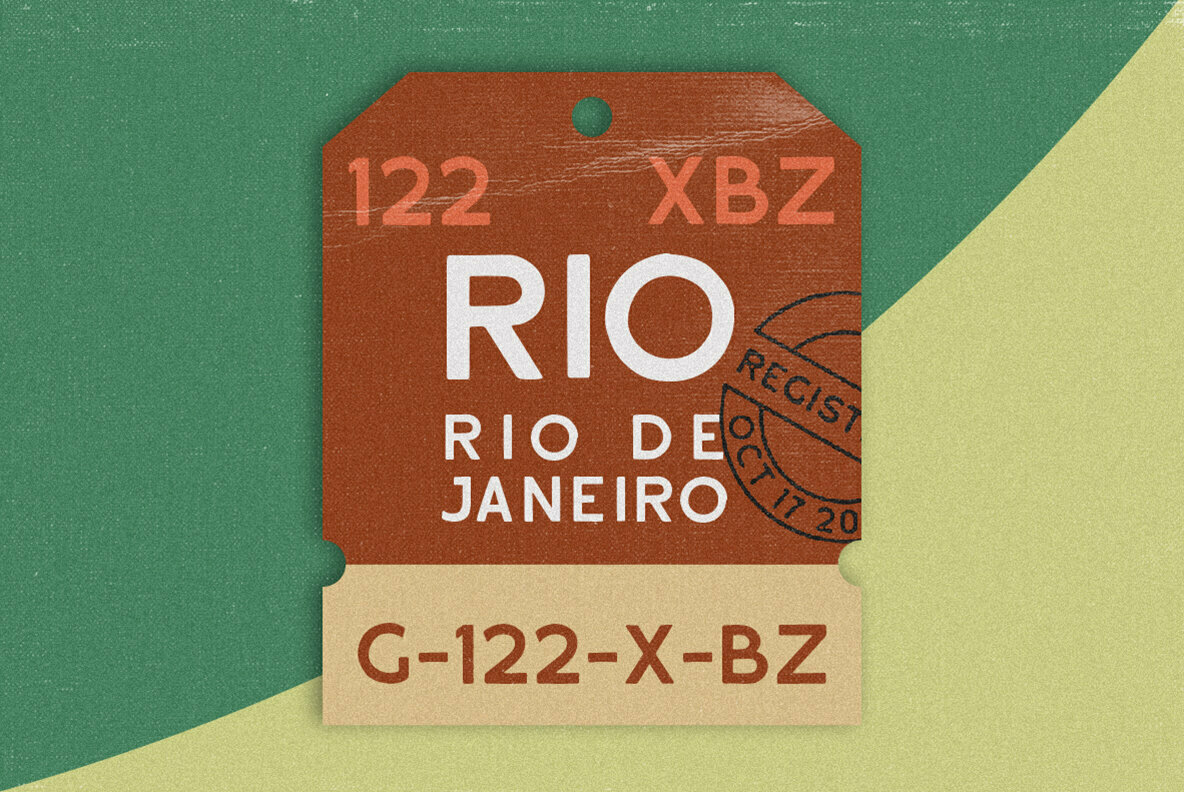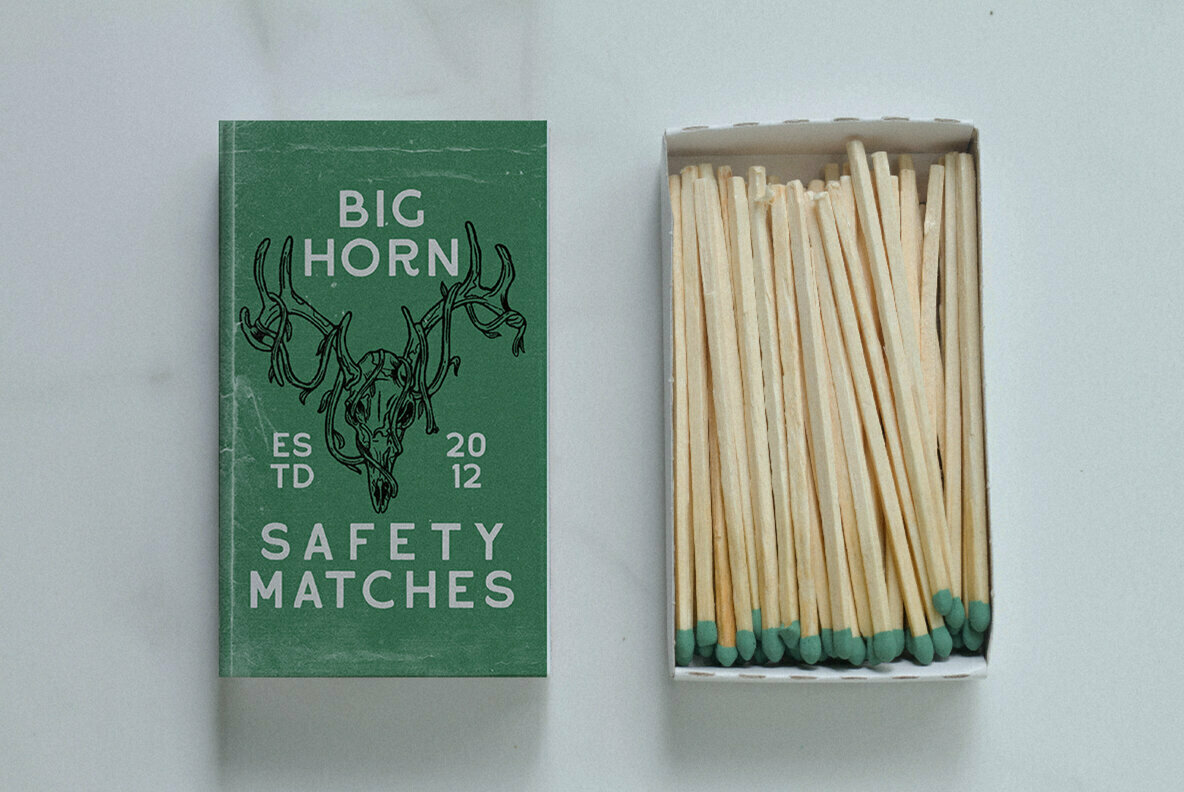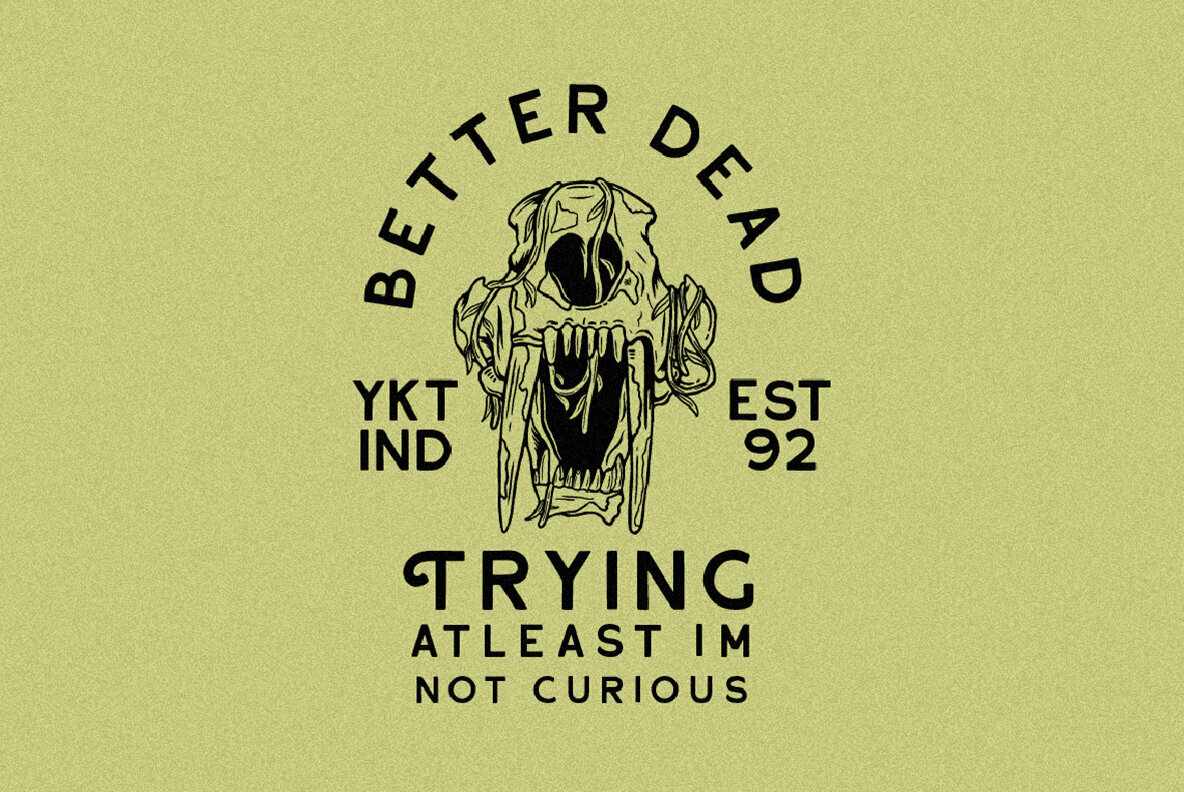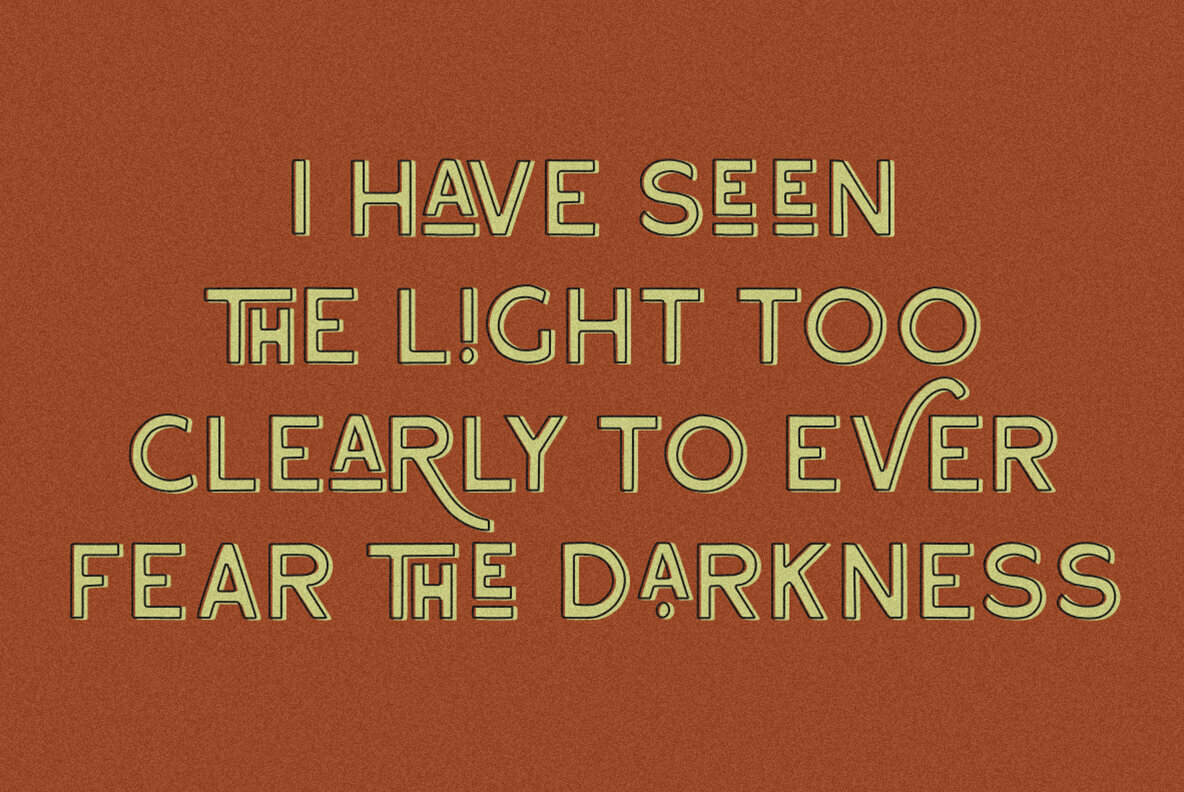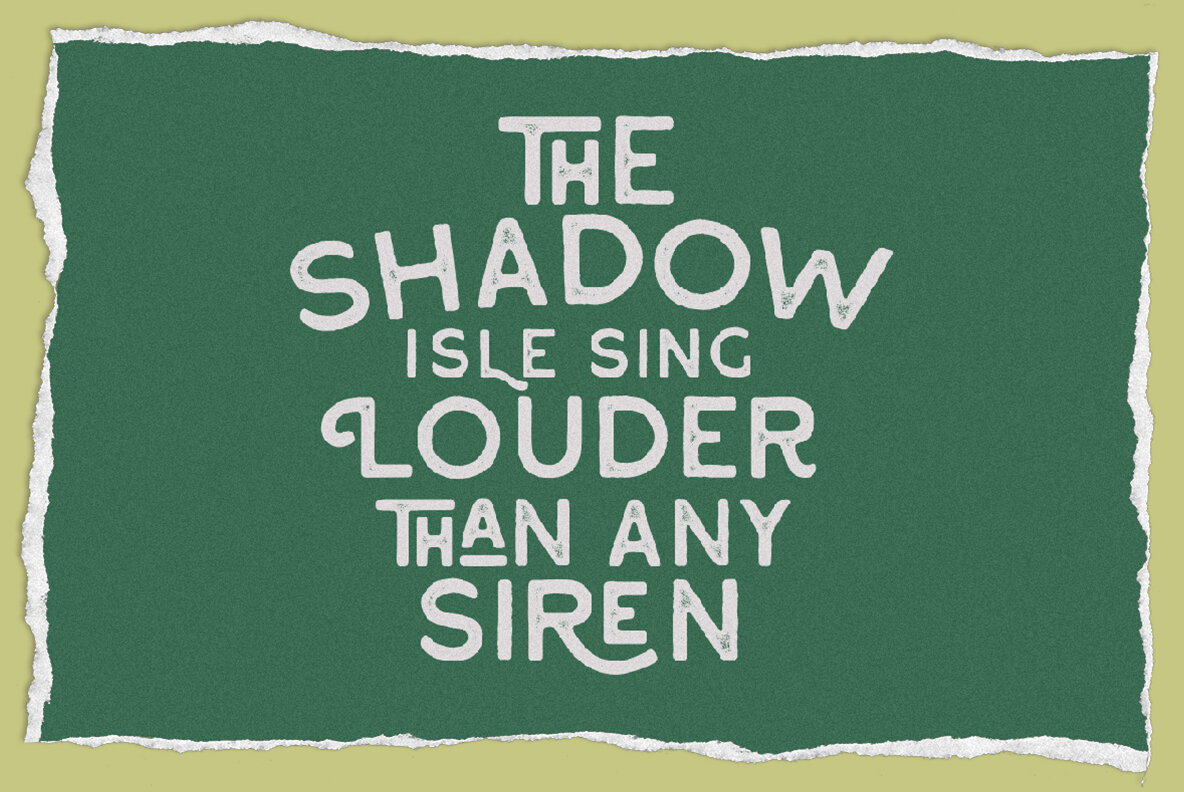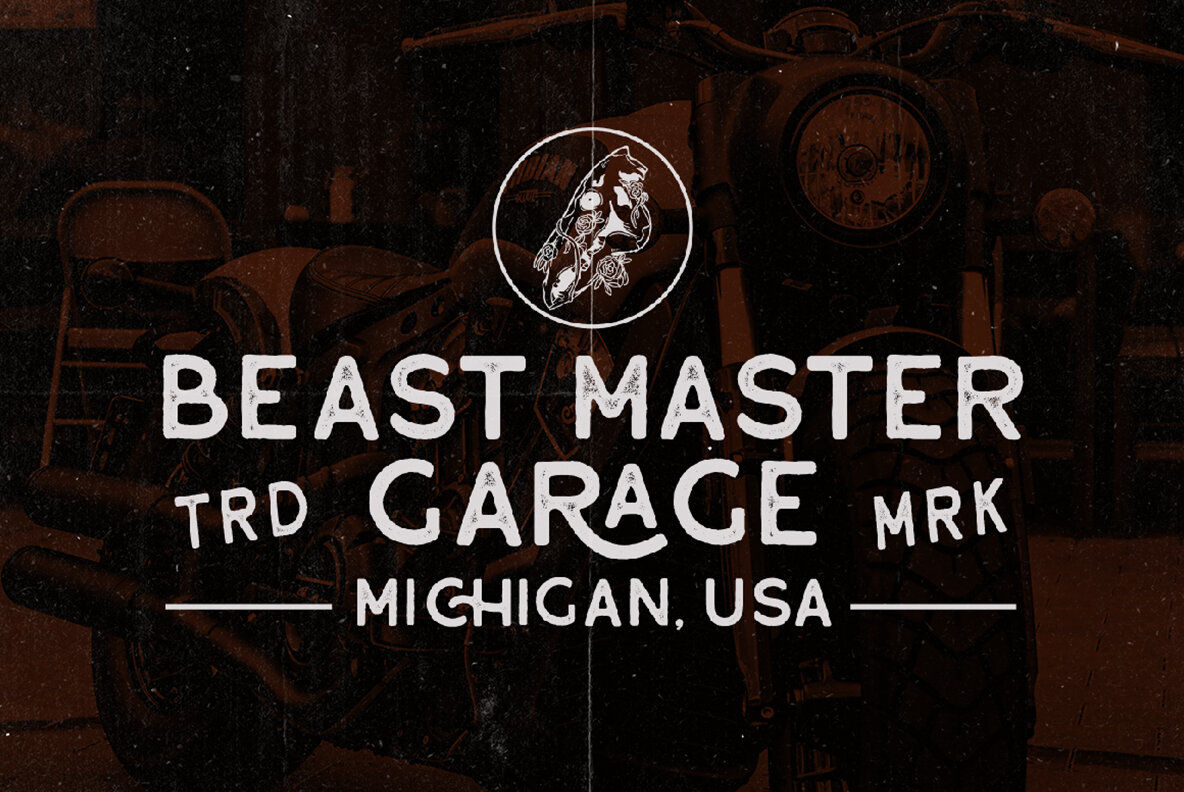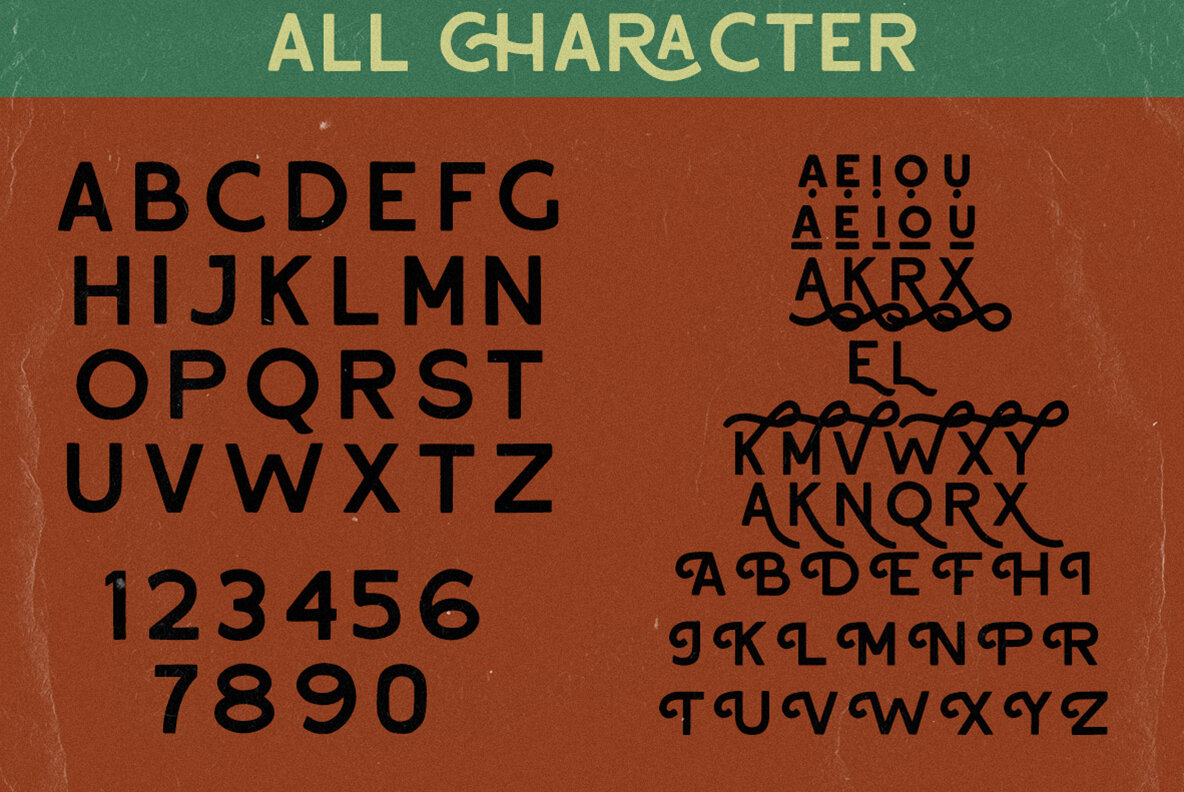
Reliva Font
Revitalize your design projects with Reliva Organic Sans, a typeface by Rillatype that combines simplicity with creativity. Characterized by its many alternates and ligatures, Reliva ensures that each piece of work stands out with distinctiveness. Perfect for logotypes, branding, packaging, and quotes, this font adds a personal touch to any project.Reliva Organic Sans: Unique Typeface with Artistic Flair